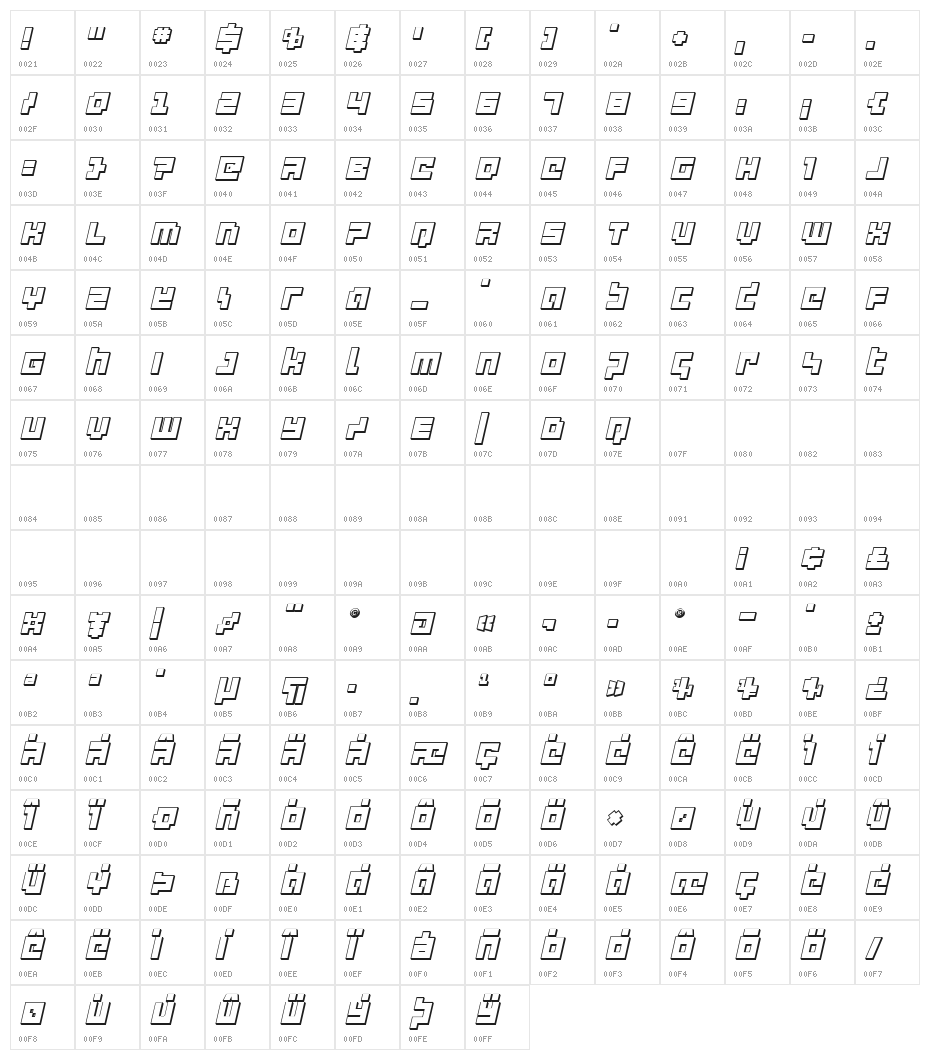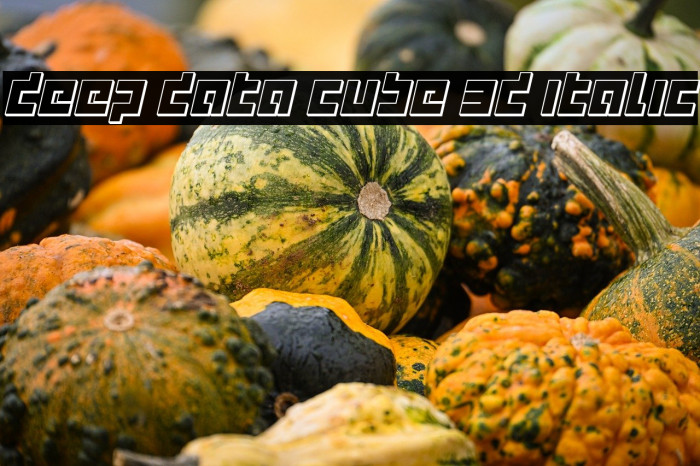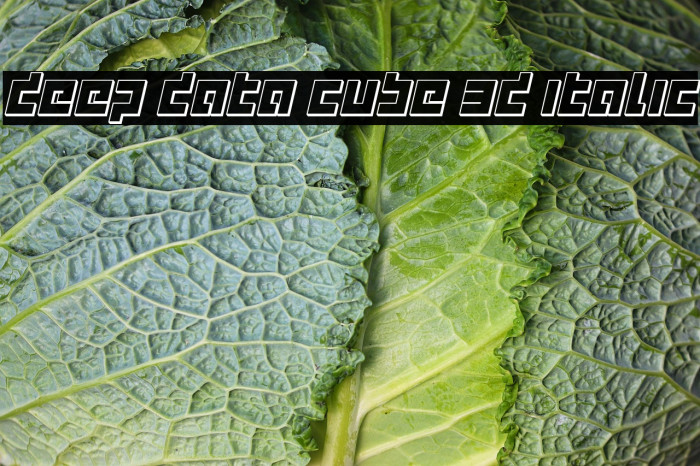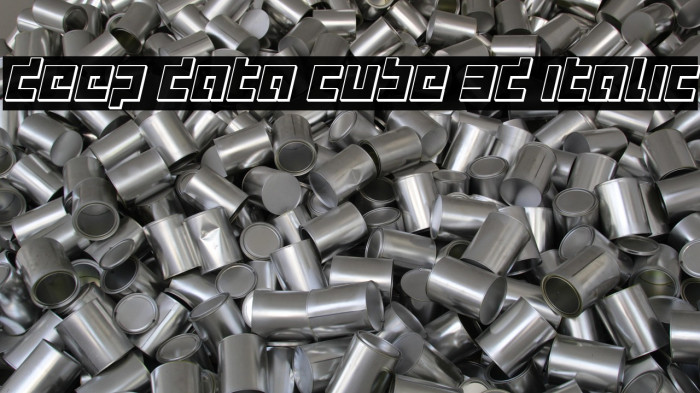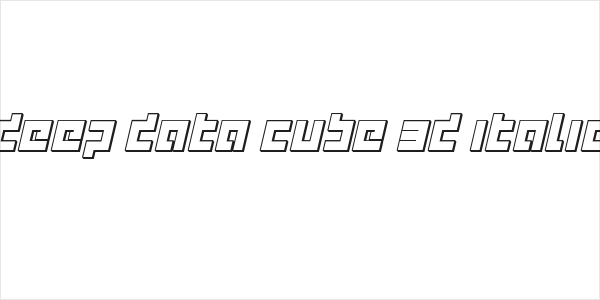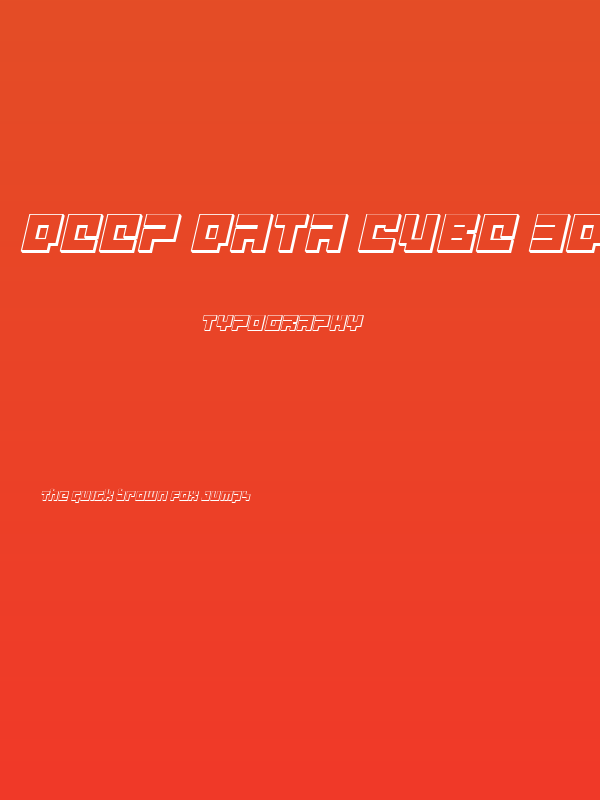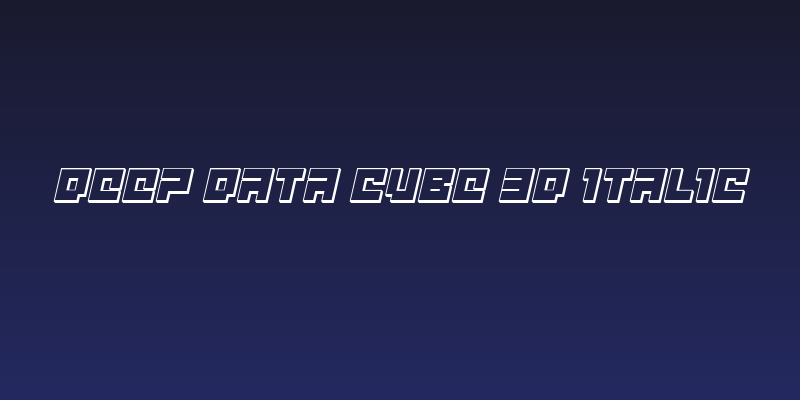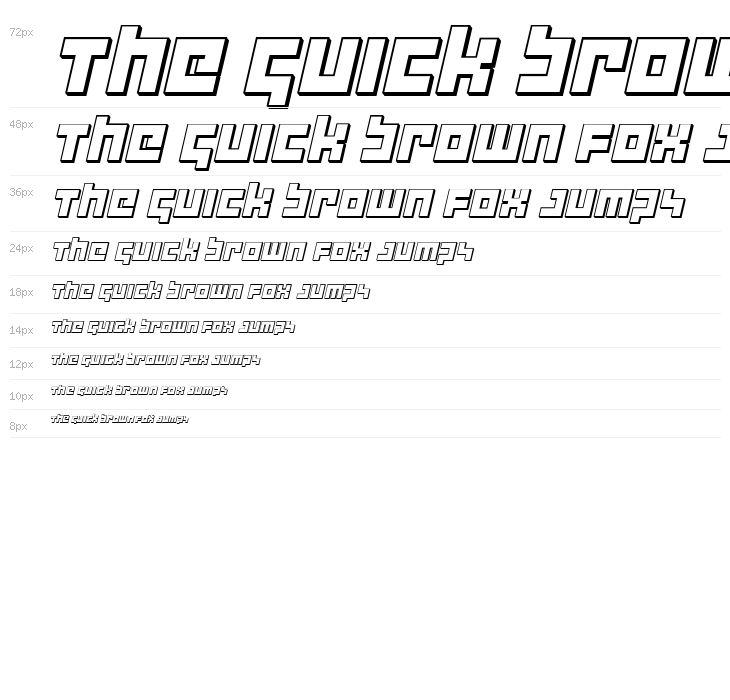
deep data cube 3d italic Font
deep data cube 3d italic Description
This font features a bold, three-dimensional design with a distinct italic slant, creating a futuristic and dynamic appearance. The characters are outlined, giving them a hollow, cube-like effect that enhances the 3D illusion. The geometric shapes and sharp angles contribute to a modern, tech-inspired aesthetic. The uppercase and lowercase letters maintain consistency in style, while numbers and special characters are designed to match the overall theme. This font is visually striking and commands attention, making it ideal for projects that require a bold statement.
| Proposed Projects | Ideal for tech-related branding, video game titles, sci-fi posters, and digital media projects. |